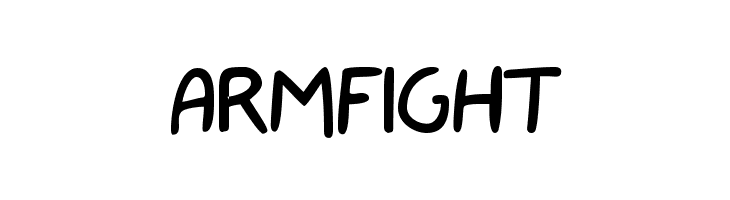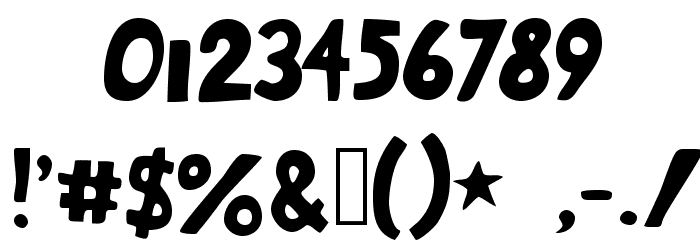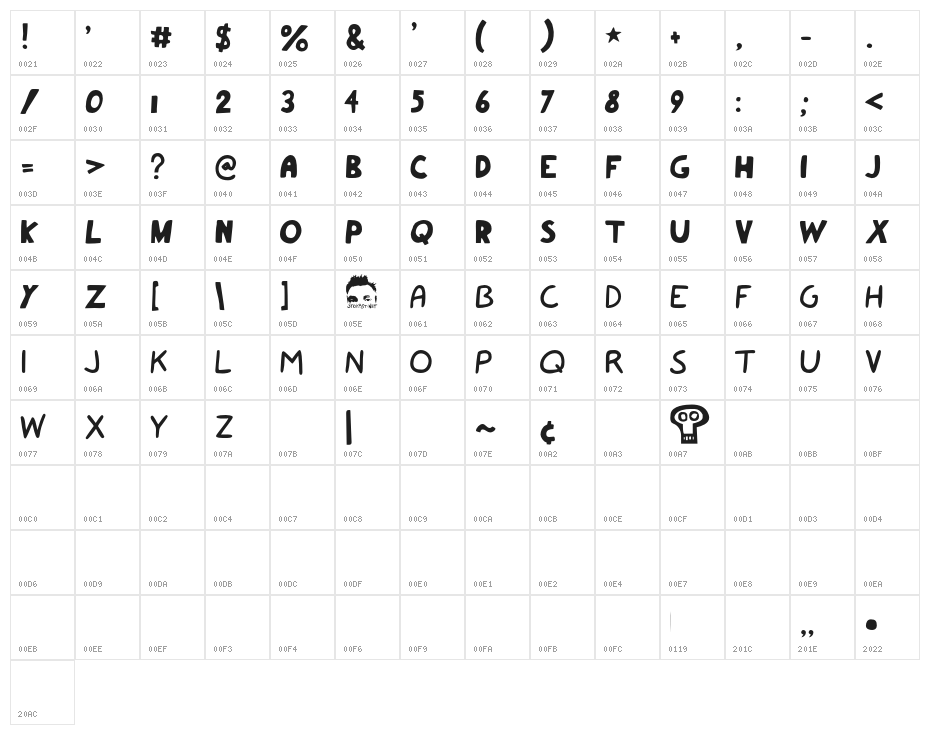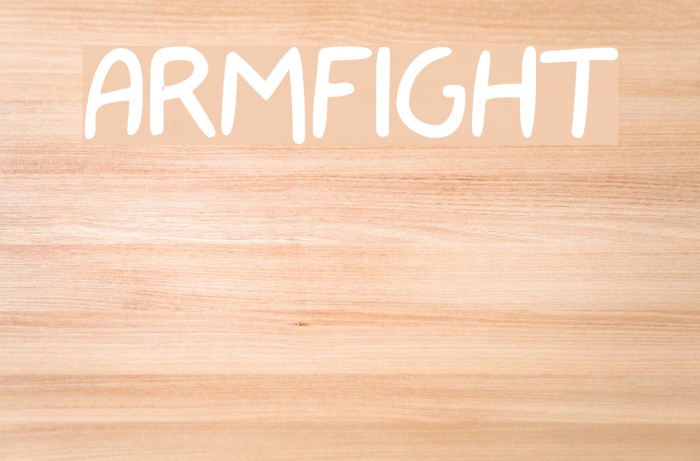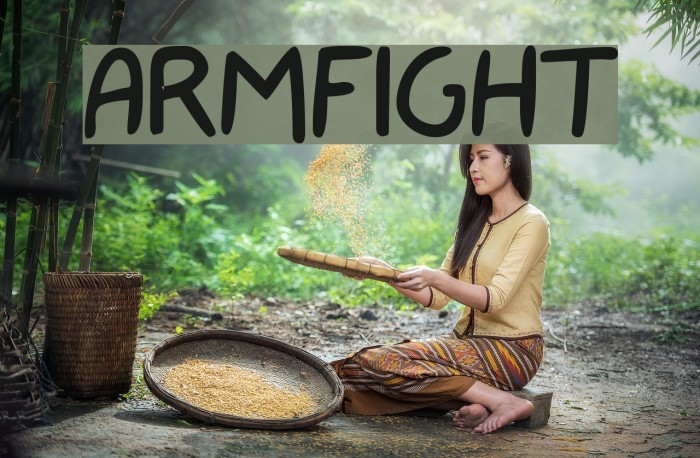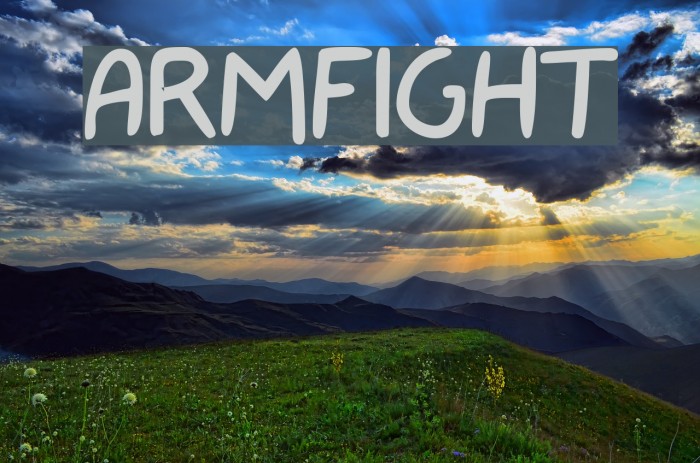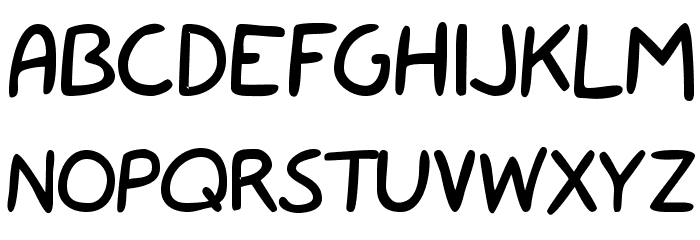
armfight Font
armfight Description
This font features a playful and bold style, characterized by its rounded and slightly irregular letterforms. The uppercase letters have a strong presence with thick strokes, while the lowercase letters maintain a consistent flow with a more casual appearance. The numbers are bold and easily readable, matching the overall style of the font. Special characters are included, maintaining the same playful and bold aesthetic. This font is ideal for projects that require a fun and engaging look, such as children's books, posters, or branding for creative products.
| Proposed Projects | Ideal for children's books, playful posters, and creative branding. |